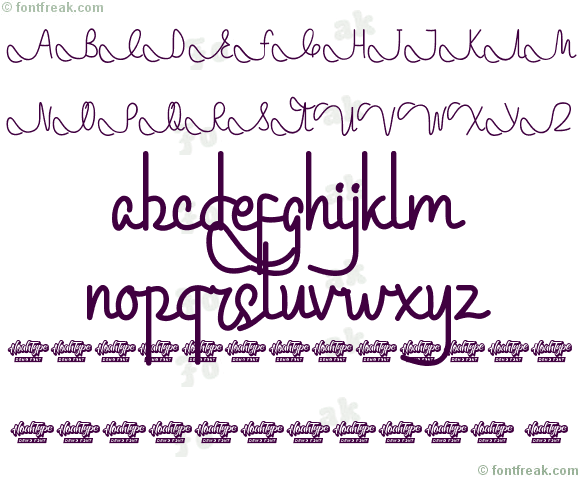
Machington Demo
About Machington Demo
The Machington Demo font by Noah Type is a charming handwritten typeface that brings a touch of personality and warmth to any design project. Its playful and fluid strokes create a friendly aesthetic, making it an excellent choice for a variety of applications. With a moderate stroke weight and a subtle contrast, the letters flow together seamlessly, ensuring readability while maintaining an inviting character. The spacing is well-balanced, allowing for easy legibility without sacrificing the font's whimsical appeal.
This versatile font is particularly well-suited for wedding invitations, where its romantic style can add a personal touch. Additionally, it shines in the realm of greeting cards and social media graphics, perfect for content creators looking to convey a sense of friendliness and approachability. Restaurant menus can also benefit from the Machington Demo font, as its unique style can enhance the dining experience and make the menu feel more curated. Another ideal use case is for branding and logo design, where the font’s distinctive flair can help small business owners stand out in a competitive market.
Targeting graphic designers, small business owners, and content creators, the Machington Demo font is a freeware option that allows users to elevate their projects without budget constraints. The playful nature of this typeface makes it a go-to choice for those seeking to create eye-catching and memorable designs.